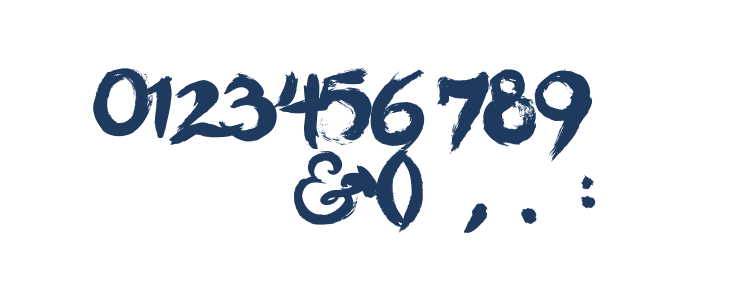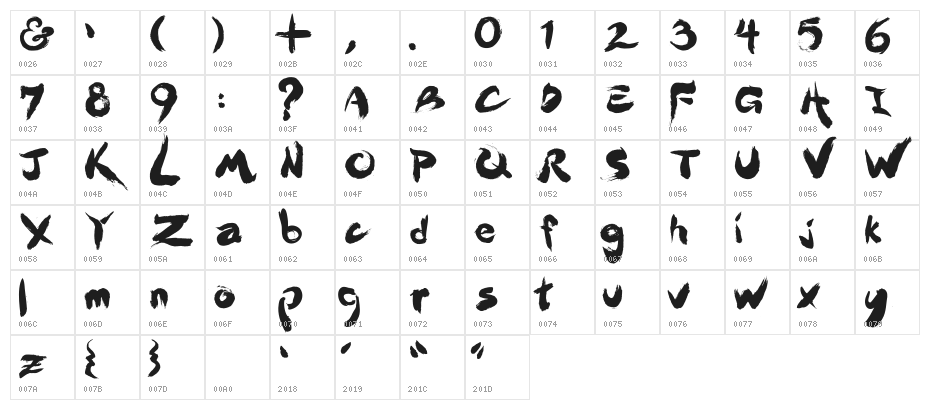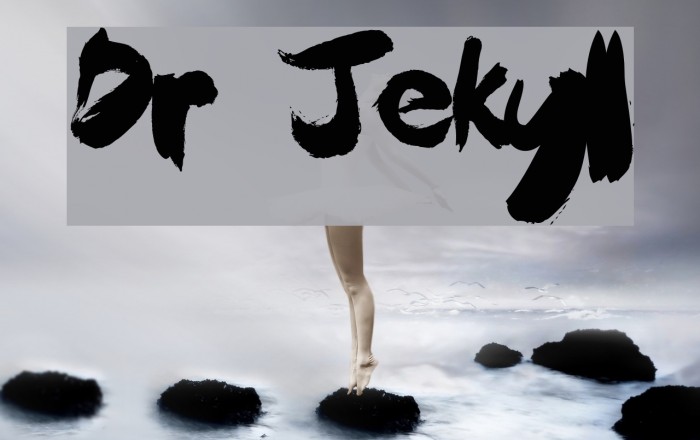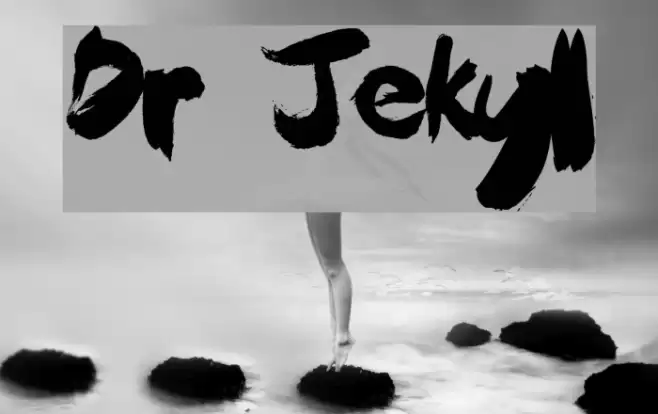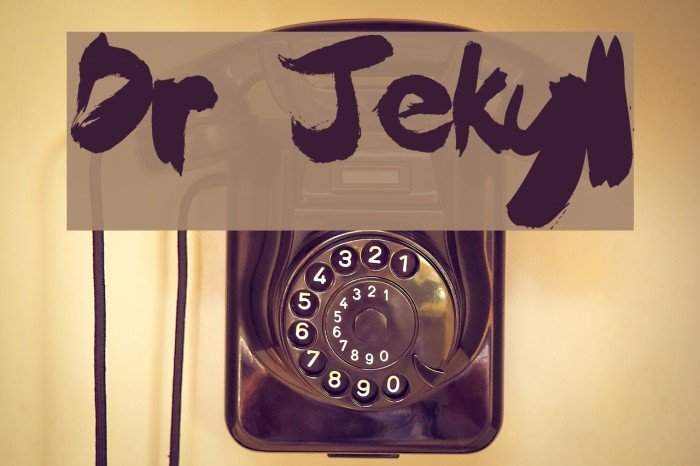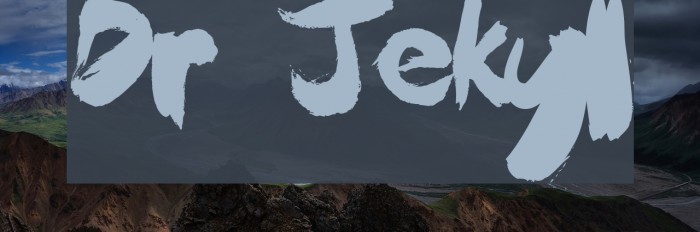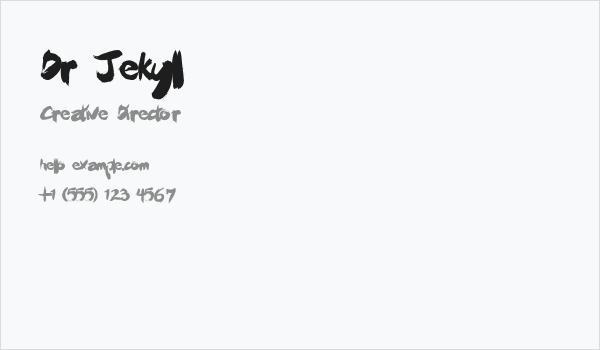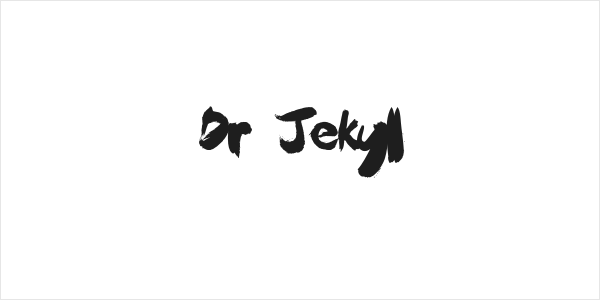
Dr Jekyll Font
Dr Jekyll Description
This font exhibits a bold and expressive brushstroke style, characterized by its dynamic and energetic appearance. The letters are crafted with a sense of movement, featuring irregular edges and varying thicknesses that mimic the natural flow of ink or paint. The uppercase and lowercase letters maintain a consistent artistic flair, while the numerals and special characters integrate seamlessly into the overall design. The font's raw and organic feel makes it stand out, offering a unique aesthetic that is both modern and artistic.
| Use Case | Headlines, Logos, Artistic projects |
| Proposed Projects | Ideal for creative projects such as posters, album covers, branding for artistic ventures, or any design requiring a bold, expressive touch. |